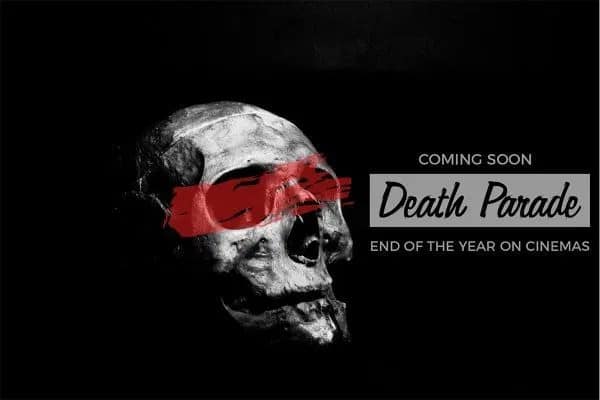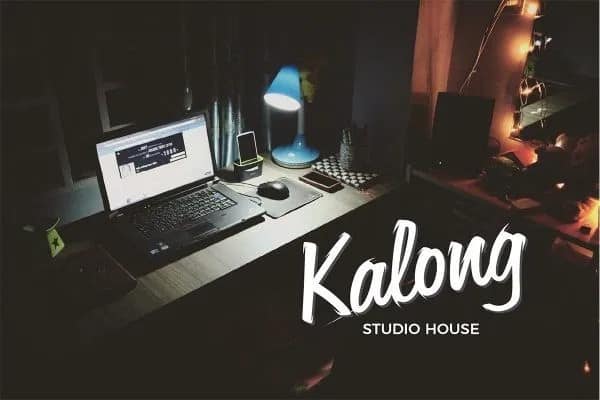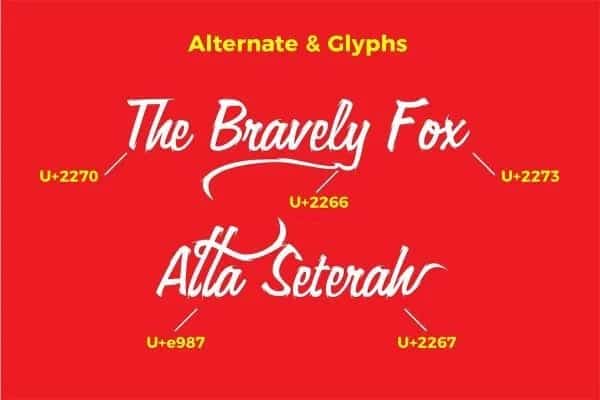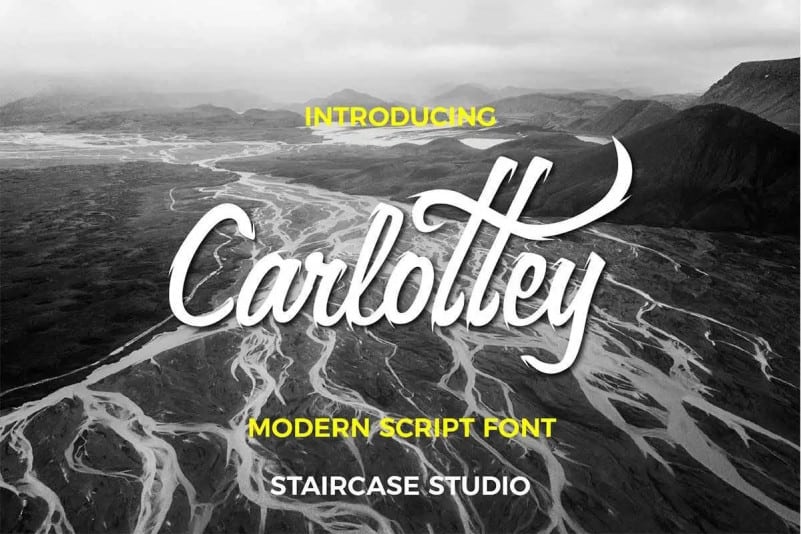
Introducing Carlottey Calligraphy Font. It is elegant, feminine, fashionable and friendly. Trendy and feminine style. Made from font designer named Staircase Studio. Carlottey feels equally charming and elegant. A collection of letters and numbers suitable your projects also great for Logotype, Branding Design, Logo Design, Digital Lettering Arts, T-Shirt/Apparel, Poster, Magazine, Signs, Advertising Design, and any design needs.